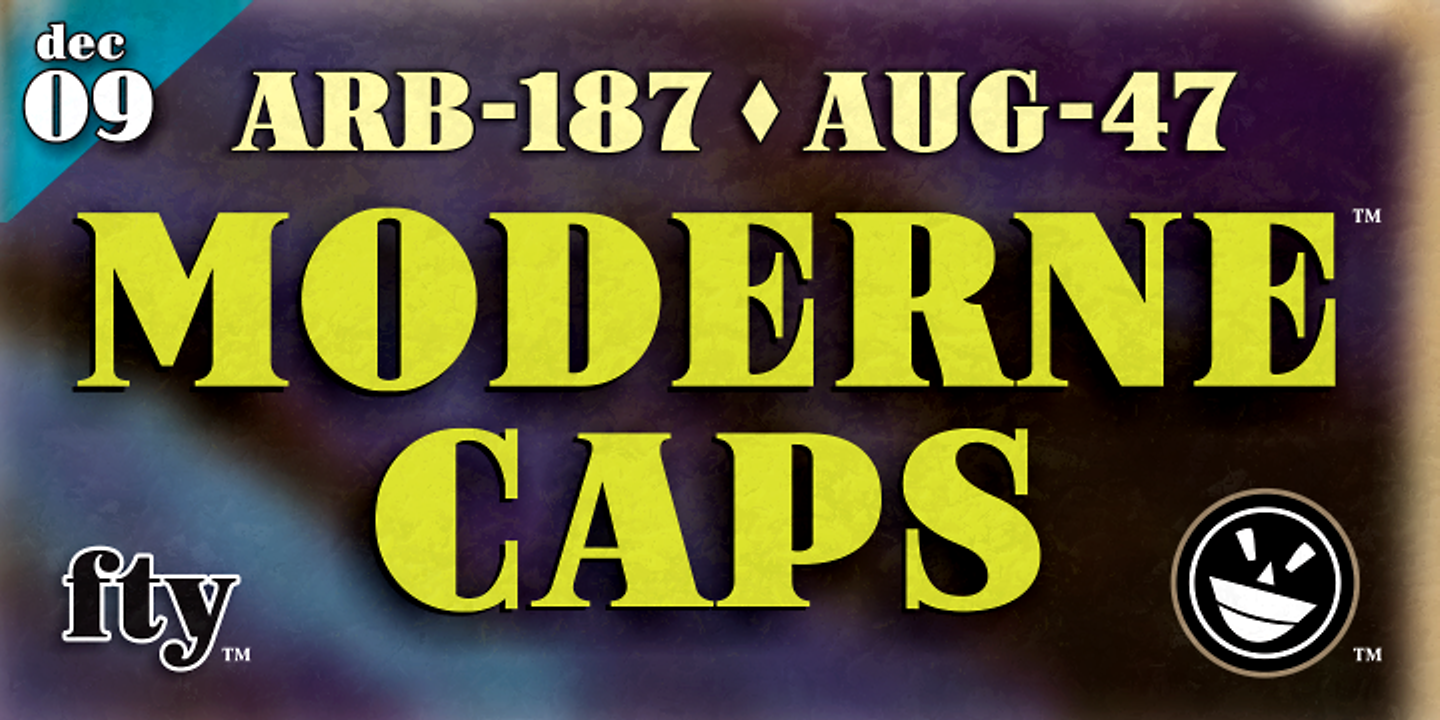
ARB-187 Moderne Caps AUG-47 Font is perfect for Art Deco restorations, vintage luxury branding, retro automotive designs, classic hotel signage, period film titles, elegant fashion labels, sophisticated jewelry packaging, and premium lifestyle publications.
What makes ARB-187 Moderne Caps AUG-47 Font exciting is its authentic Art Deco heritage that captures the glamorous sophistication of the Machine Age through precisely engineered letterforms. The geometric elegance and modernist principles create an atmosphere of luxury and technological optimism that defined the golden age of design.
ARB-187 Moderne Caps AUG-47 Font family includes regular, bold, light, condensed, and ornate versions, plus Art Deco ornaments, geometric patterns, and machine-age decorative elements that enhance the modernist typography experience with period authenticity.
Step into the golden age with ARB-187 Moderne Caps AUG-47 Font Free Download, the ultimate choice for projects celebrating the pinnacle of modernist design excellence. This magnificent typeface embodies the spirit of Art Deco mastery through letterforms that seem crafted for the lobbies of the Chrysler Building and the decks of luxury ocean liners. The meticulously engineered characters feature geometric precision that ensures outstanding impact while projecting the kind of sophisticated optimism that defined an entire era of design innovation. Luxury brands and period restoration specialists consistently select this font for projects requiring authentic connection to the most glamorous period in design history combined with contemporary marketing effectiveness. Its comprehensive collection of period elements provides unlimited possibilities for creating memorable experiences that celebrate the marriage of art and industry with timeless elegance. Experience the transformative power of modernist typography that elevates contemporary projects into expressions of golden age sophistication, establishing your brand as heir to the greatest design tradition in modern history.